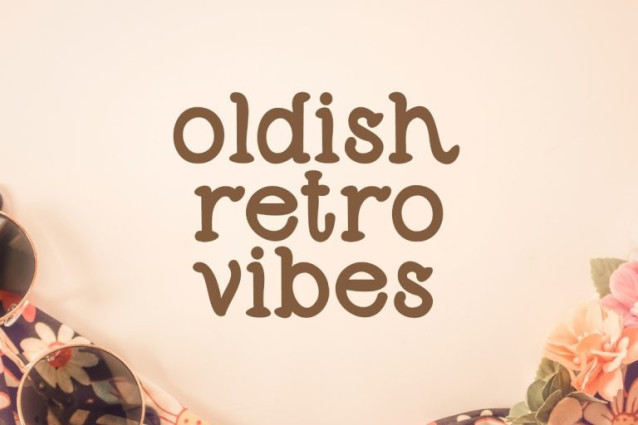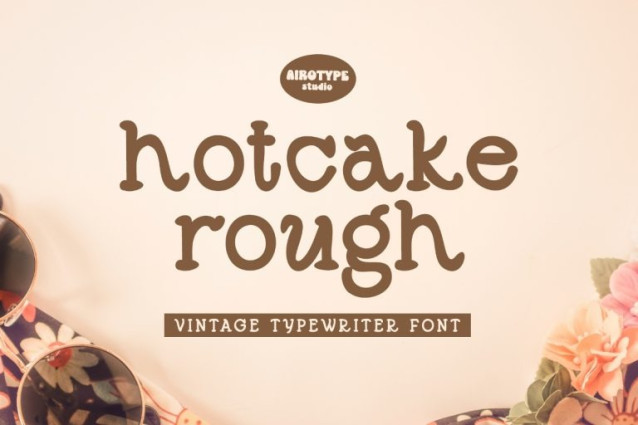
Hotcake Rough Font
Hotcake Rough is messy and rough version of hotcake typewriter font. It looks more vintage and rougher. This is the messy version of hotcake typewriter font.
Hotcake Rough is suitable font for any projects, such as vintage design, crafting, sticker, notes, sublimation, and many more.